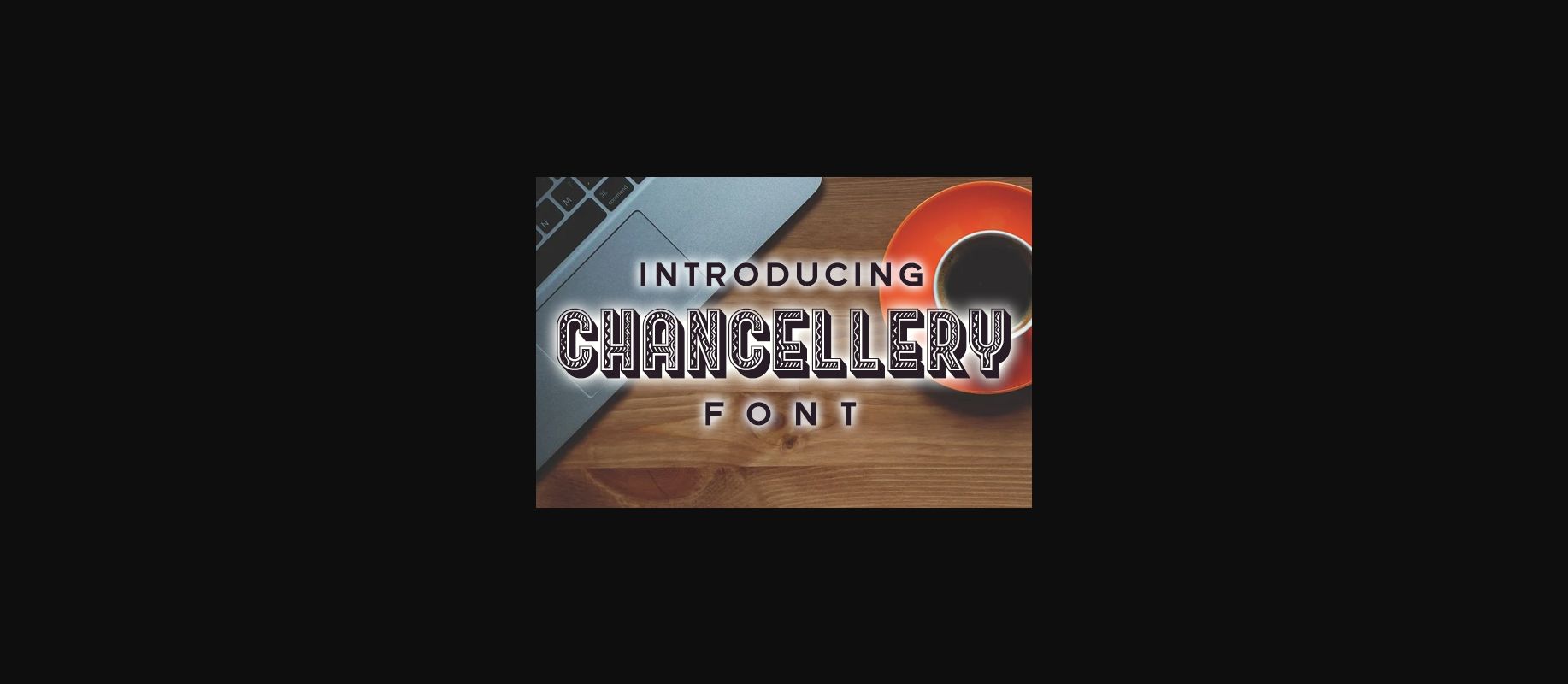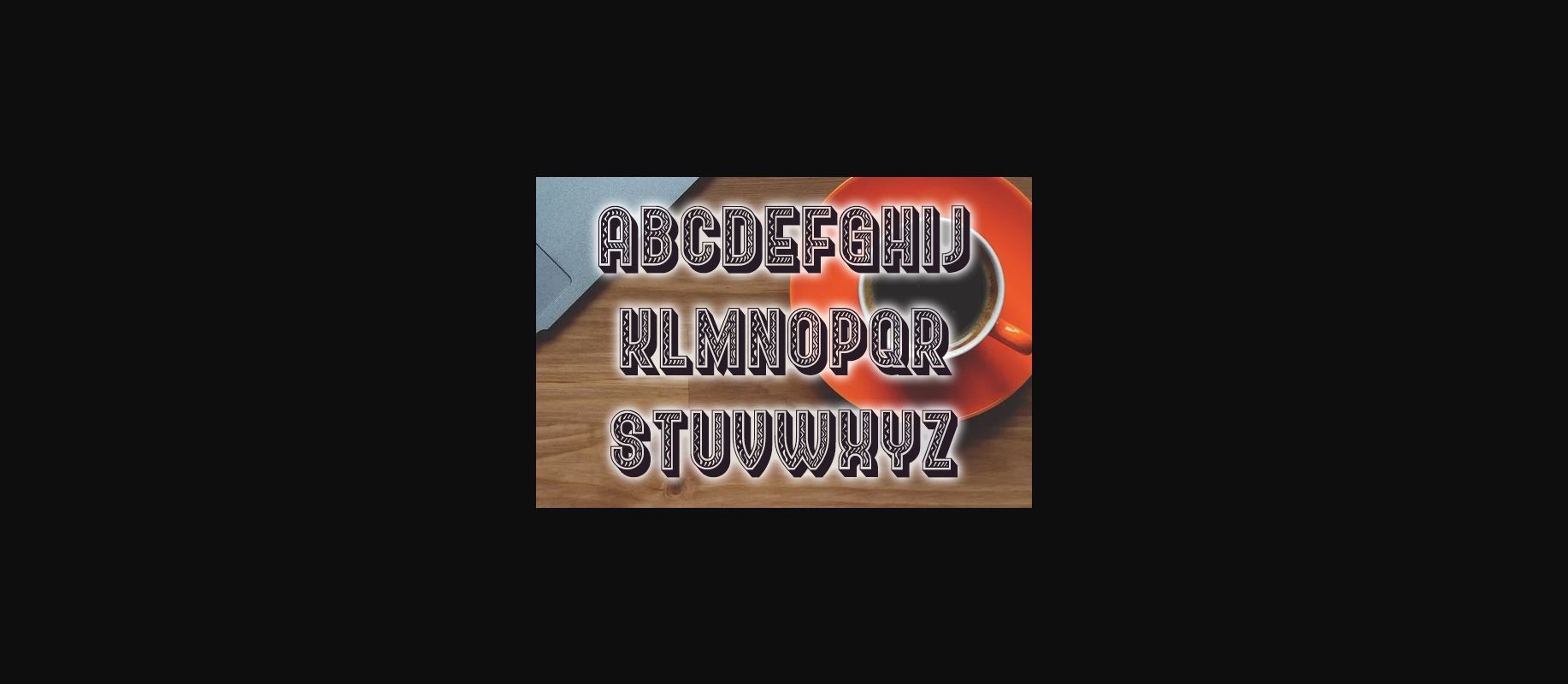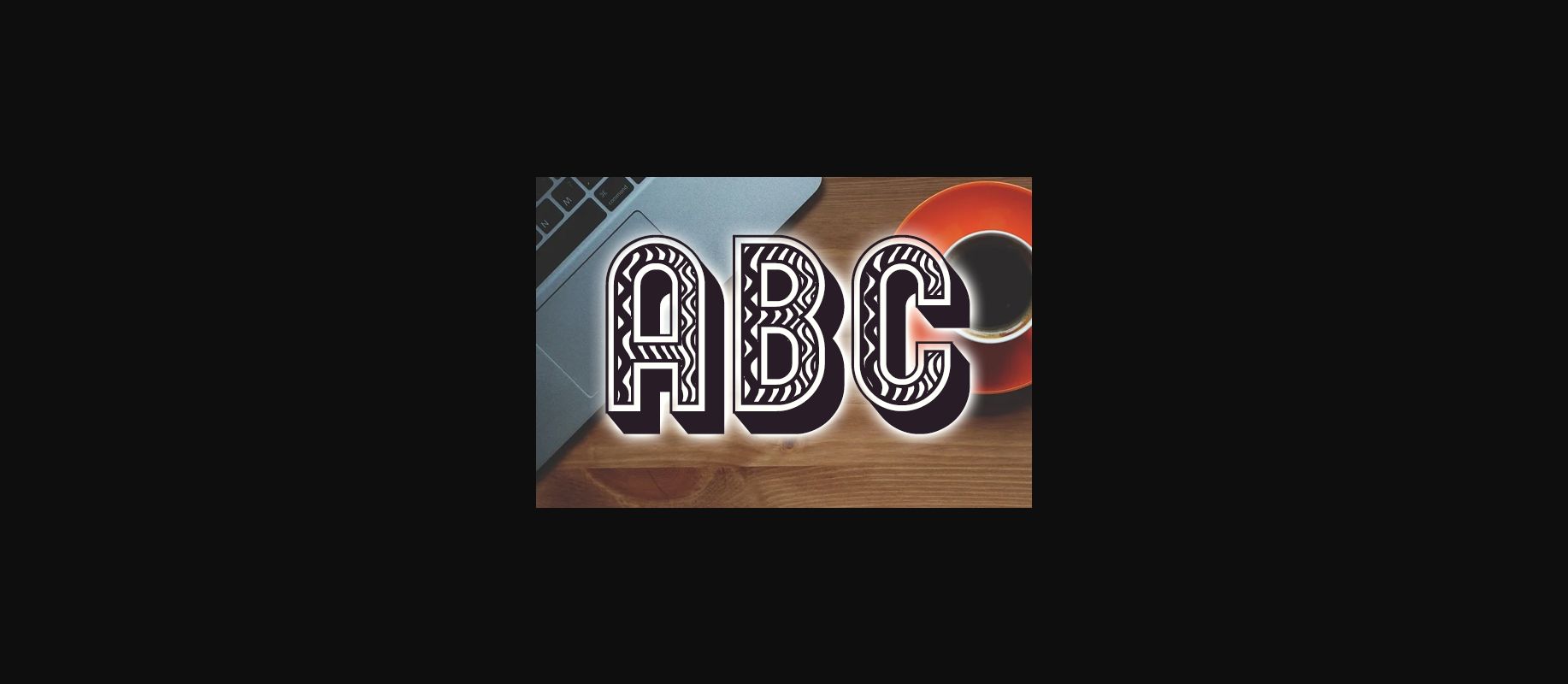
Chancellery Font
About Chancellery Font
Chancellery is an awesome bold decorative font. It has a futuristic, techno style which will enhance each of your creative ideas!